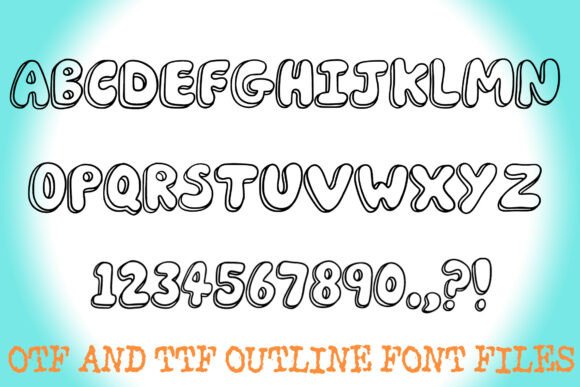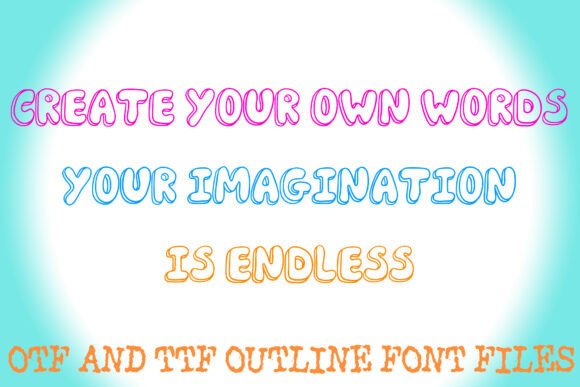
Brighten Up Your Designs with the Ultimate Cartoon Font
Remember the joy of creating with colorful markers and crayons as a child? The world of design can spark a similar sense of wonder and playfulness, especially when the right font is used. For designers seeking to inject a dose of whimsy and fun into their projects, the Bubble Pop Cartoon Font is an ideal choice.
This cheerful typeface is designed to bring a smile to your audience’s faces, making it perfect for kids’ projects, birthday invitations, comics, logos, toy packaging, classroom posters, and playful branding. With its rounded, puffy bubble shape and friendly 3D effect, the Bubble Pop Cartoon Font is not only visually appealing but also easy to read and use in both print and digital formats.
Bubble Pop Cartoon Font Key Features
- Unique Characteristics: The Bubble Pop Cartoon Font features a playful, hand-drawn design with rounded edges and soft curves, giving it a whimsical and childlike feel.
- Stylistic Sets: The font includes a range of stylistic sets, including bold, italic, and condensed versions, allowing designers to add variety and interest to their designs.
Bubble Pop Cartoon Font Review
Overall, I think the Bubble Pop Cartoon Font is a fun and playful choice for any project that requires a lighthearted, cartoonish vibe. Here are some of its strengths: ✨
- Unique and eye-catching: This font is sure to grab attention and add a touch of whimsy to your designs.
- Highly customizable: You can easily adjust the font’s size, color, and style to fit your project’s needs.
- Perfect for kids’ content: The Bubble Pop Cartoon Font is ideal for children’s books, websites, and other projects that cater to young audiences.
- Not ideal for formal projects: This font may not be suitable for serious or professional projects, as it can come across as too playful or childish.
- Limited versatility: While the font is customizable, it may not be suitable for complex or intricate designs.
- May not be easily readable: The font’s playful style can sometimes make it difficult to read, especially for large blocks of text.
Overall, I think the Bubble Pop Cartoon Font is a great choice for projects that require a lighthearted, cartoonish vibe. While it may not be suitable for all projects, it’s a fun and playful font that can add a lot of personality to your designs.
The Bubble Pop Cartoon Font is ideal for creating playful and whimsical designs, such as:
- Children’s book covers
- Party invitations
- Social media graphics
- Cartoon-style logos
Remember to experiment with different font sizes and colors to achieve the desired effect.
Q: Can I customize the Bubble Pop Cartoon Font to fit my specific design needs?
While the Bubble Pop Cartoon Font is designed to be a unique and distinctive font, you may be able to customize it using font editing software or by creating a custom font based on the original design. However, be aware that modifying a font can be complex and may require technical expertise.